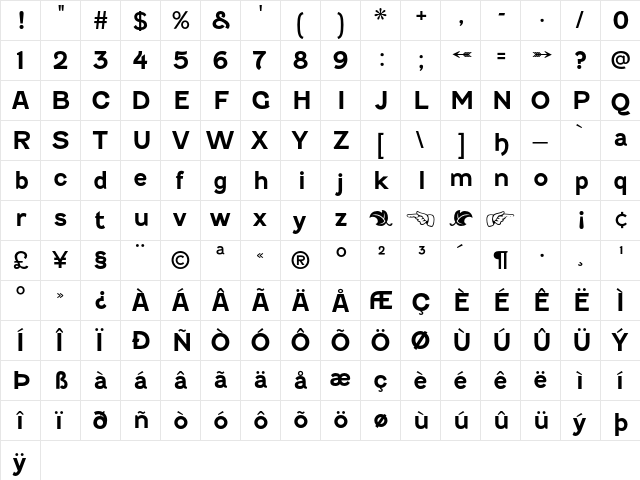
Fenwick Bold
Design Context for Fenwick Typeface
Fenwick offers clean, dependable letterforms without strong stylistic allegiance, making it a practical choice for designers who need flexibility. Its bold stroke weight gives it real presence on the page.